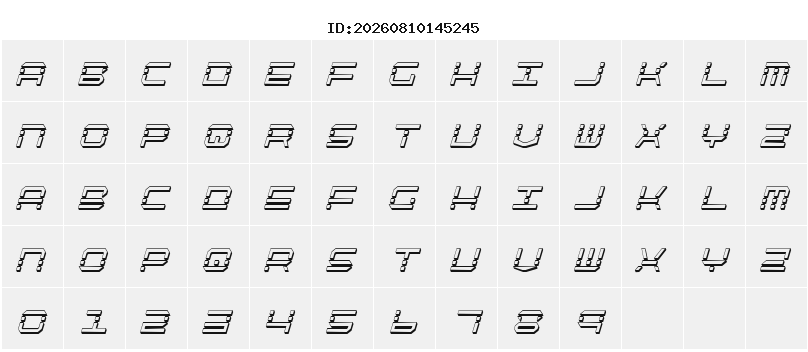
QuickQuick Shadow ItalCondensed Preview
• Font Name: QuickQuick Shadow ItalCondensed
• Font Style: Shadow ItalCondensed
• Full Font Name: QuickQuick Shadow ItalCondensed
About QuickQuick Shadow ItalCondensed.ttf
QuickQuick Shadow ItalCondensed.ttf is a modern, elegant sans-serif font designed for ultimate readability and visual harmony. Perfect for branding, headlines, web design, and print materials.